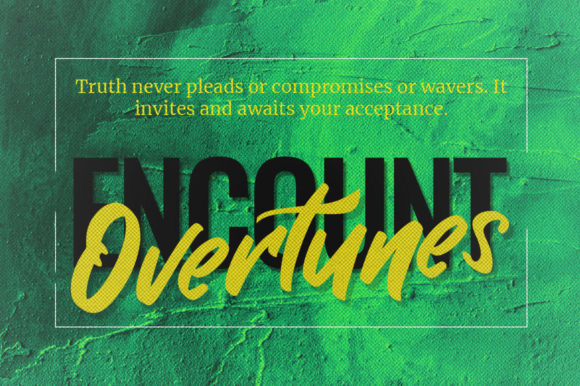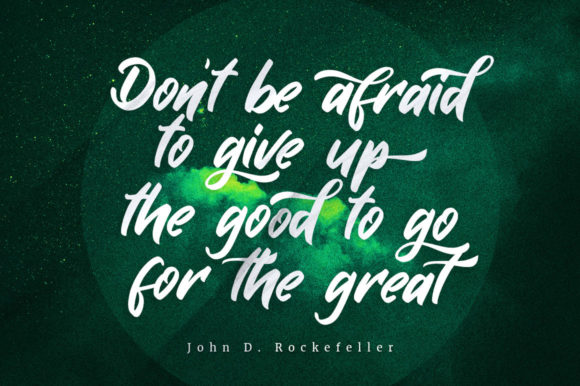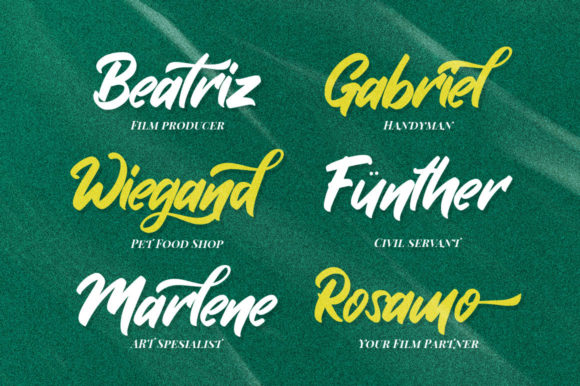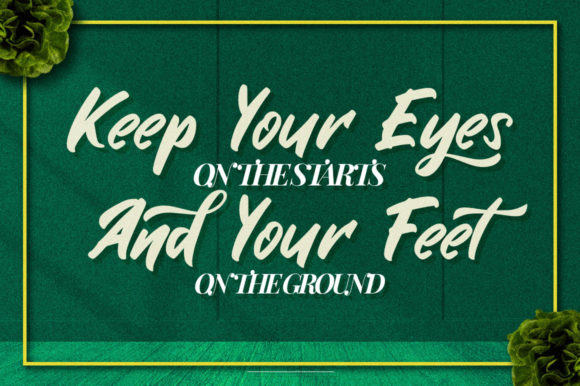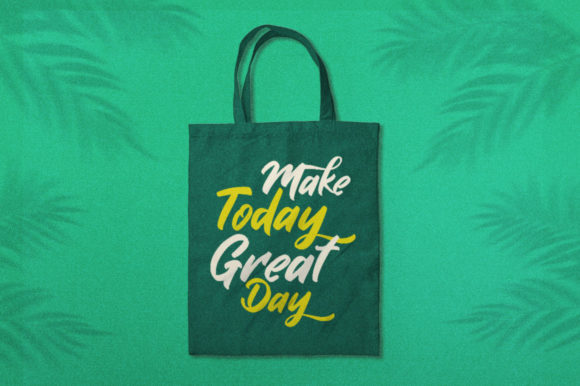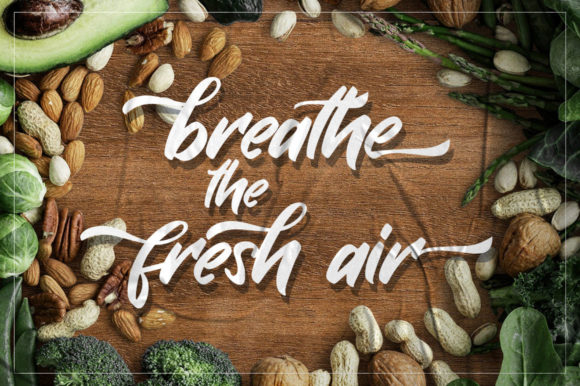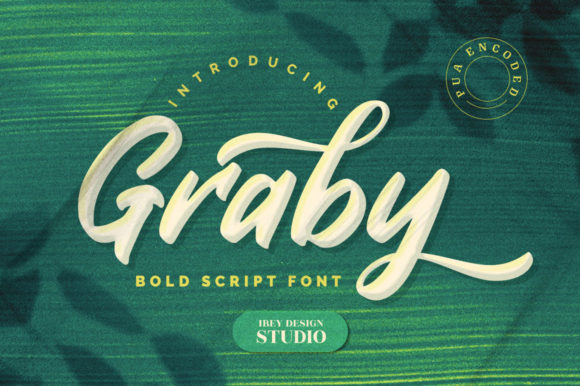
Introducing Graby Script Font: Elevate Your Designs with Elegance and Charm
Are you a designer or crafter looking for a font that exudes elegance and charm? Look no further than Graby Script Font. This beautiful handwritten font is perfect for adding a touch of sophistication to your designs, making it ideal for a variety of projects, from wedding invitations to business cards.
The Charm of Graby Script Font
Graby Script Font is a stunning script font that feels equally charming and elegant. Its flowing lines and delicate curves make it a joy to use in a variety of designs. Whether you’re creating wedding invitations, thank you cards, quotes, greeting cards, logos, or business cards, Graby Script Font is the perfect choice.
One of the standout features of Graby Script Font is its versatility. It can be used in a range of design projects, from formal events to everyday branding. Its elegant appearance makes it perfect for high-end designs, while its charming feel ensures it remains approachable and friendly.
Wedding designers and event planners, rejoice! Graby Script Font is a dream come true for creating beautiful wedding invitations, save-the-date cards, and other event materials. Its elegant and romantic feel sets the tone for a memorable and special day.
Imagine creating stunning wedding invitations that set the tone for a luxurious and sophisticated wedding. With Graby Script Font, you can add a touch of elegance to your designs, making them truly unforgettable.
Easy to Use and Customize
Graby Script Font is PUA encoded, which means you can access all of the glyphs and swashes with ease. This makes it simple to customize your designs and add your own personal touch. Whether you’re a seasoned designer or a beginner, Graby Script Font is easy to use and requires no special technical expertise.
So, what are the benefits of using Graby Script Font for designers and crafters? Here are just a few:
- Elegance and charm: Graby Script Font adds a touch of sophistication and elegance to your designs, making them stand out from the crowd.
- Versatility: Use Graby Script Font in a range of design projects, from wedding invitations to business cards, and everything in between.
- Easy to use: With PUA encoding, accessing glyphs and swashes is a breeze, making it simple to customize your designs.
- Time-saving: Graby Script Font saves you time and effort, allowing you to focus on the creative aspects of your design.
Tips for Using Graby Script Font
Here are some tips for getting the most out of Graby Script Font:
- Pair with complementary fonts: Combine Graby Script Font with other fonts to create a unique and visually appealing design.
- Experiment with colors and textures: Add depth and interest to your designs by experimenting with different colors and textures.
- Use it sparingly: Graby Script Font is elegant and charming, but can be overwhelming if overused. Use it sparingly to create a lasting impact.
In conclusion, Graby Script Font is a beautiful and elegant script font that’s perfect for designers and crafters looking to add a touch of sophistication to their designs. With its versatility, ease of use, and charming feel, it’s the perfect choice for a range of projects, from wedding invitations to business cards.